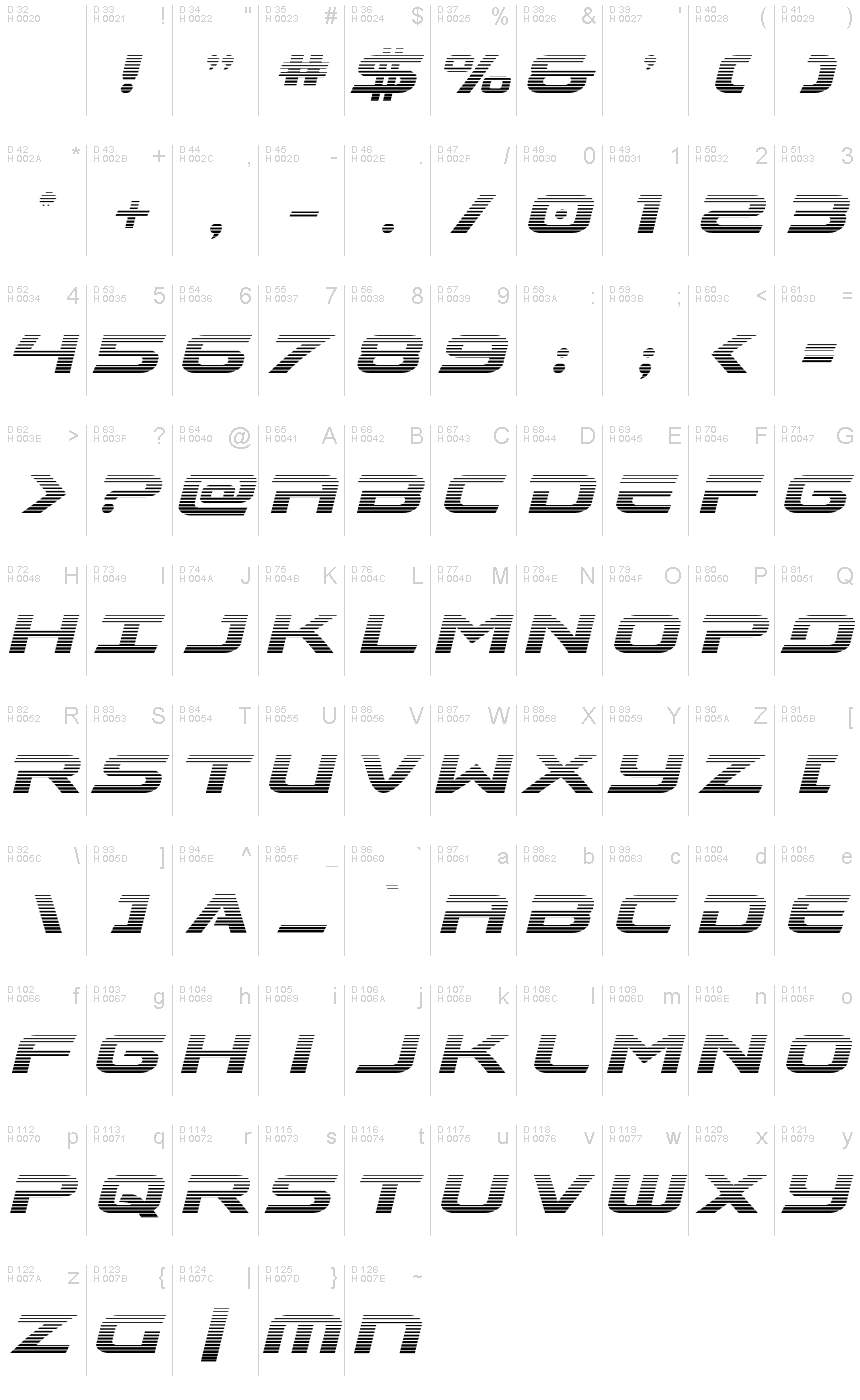
Drius Gradient, a futuristic display font by Iconian Fonts, adds a dynamic touch to your projects.
With its bold weight and extra-expanded width, this font is perfect for eye-catching headlines and striking logos. Whether you're designing sci-fi movie posters or creating innovative technology websites, Drius Gradient will effortlessly bring a modern and edgy vibe to your work. Its gradient feature enhances the font's visual impact, making it an excellent choice for futuristic-themed projects that demand attention.
Elevate your designs with the captivating allure of Drius Gradient.
Drius Gradient